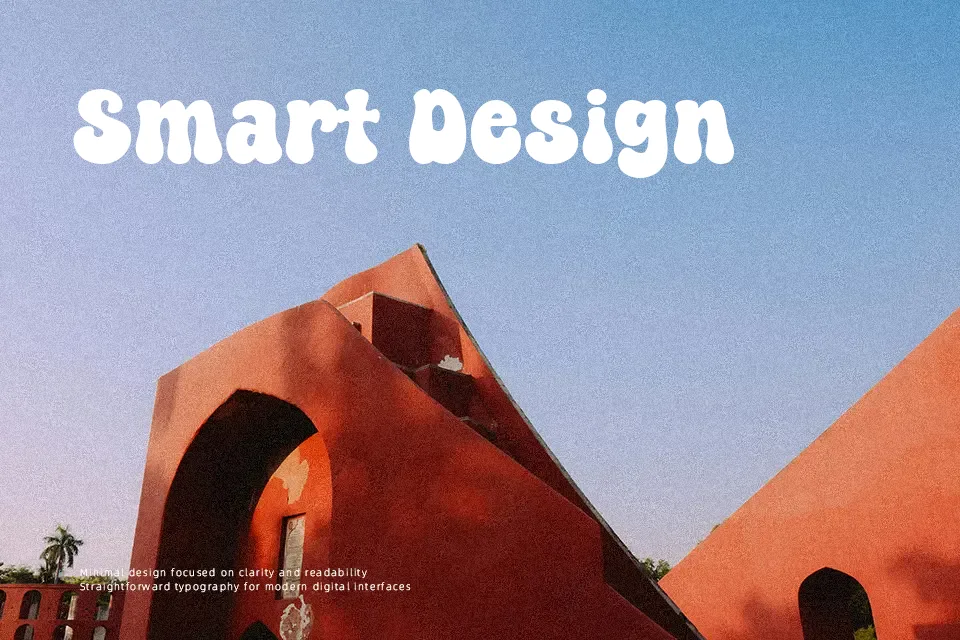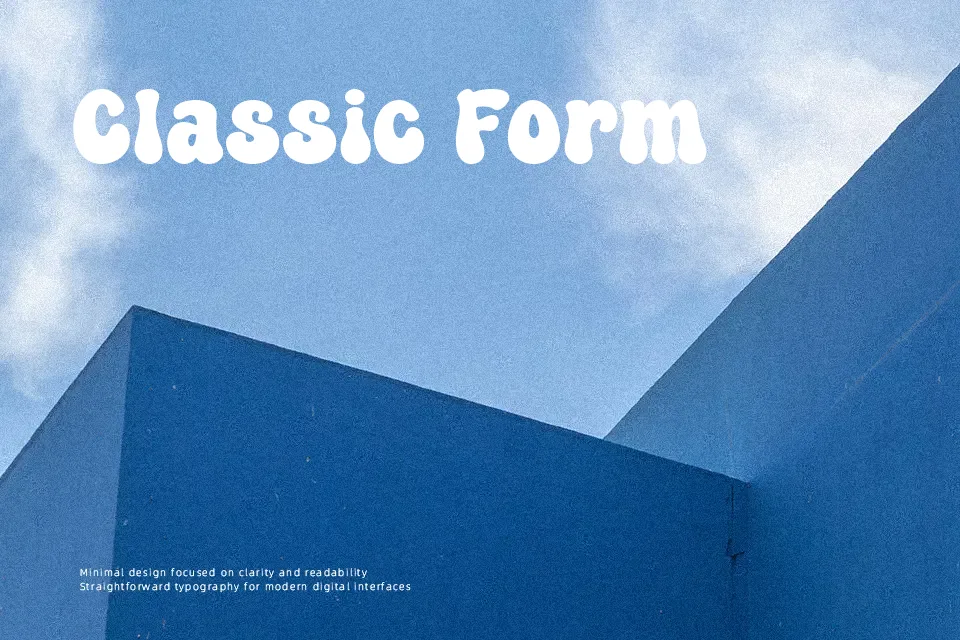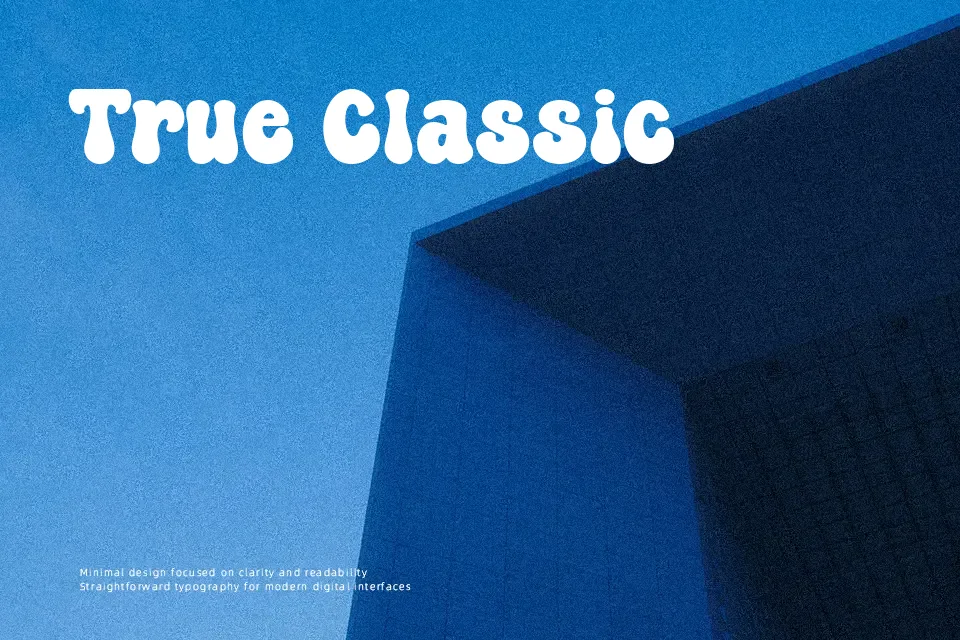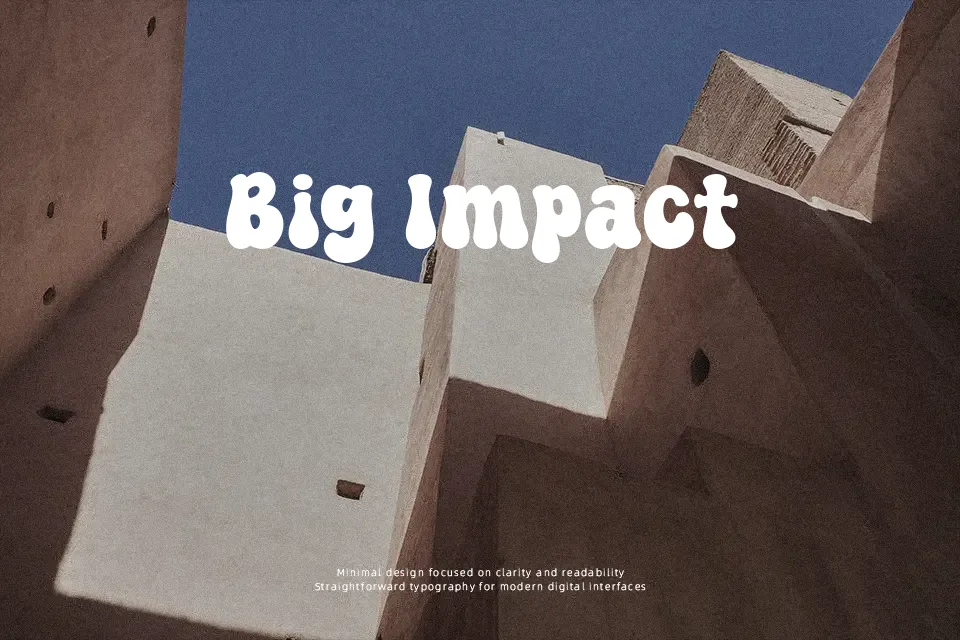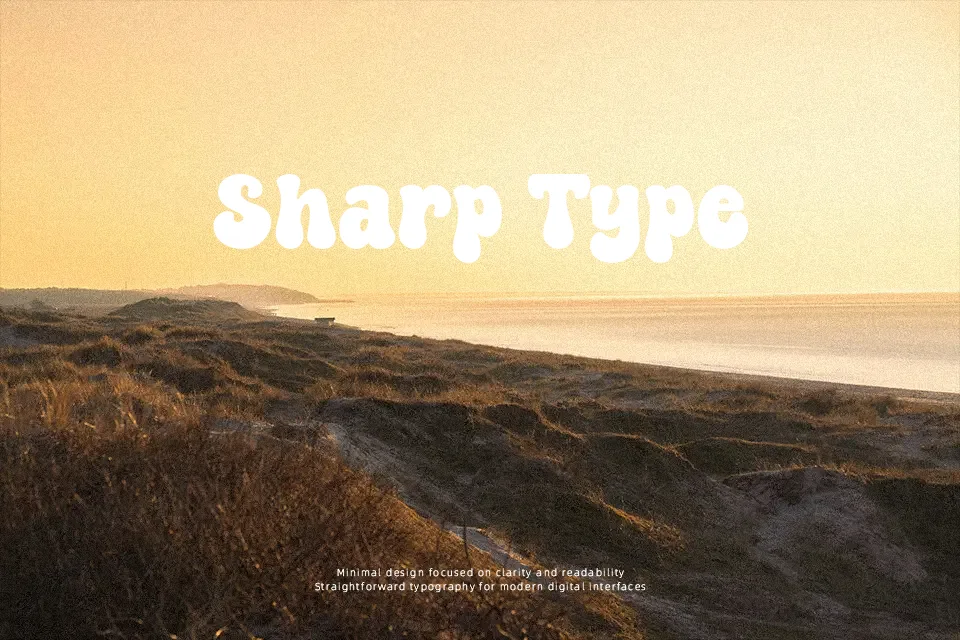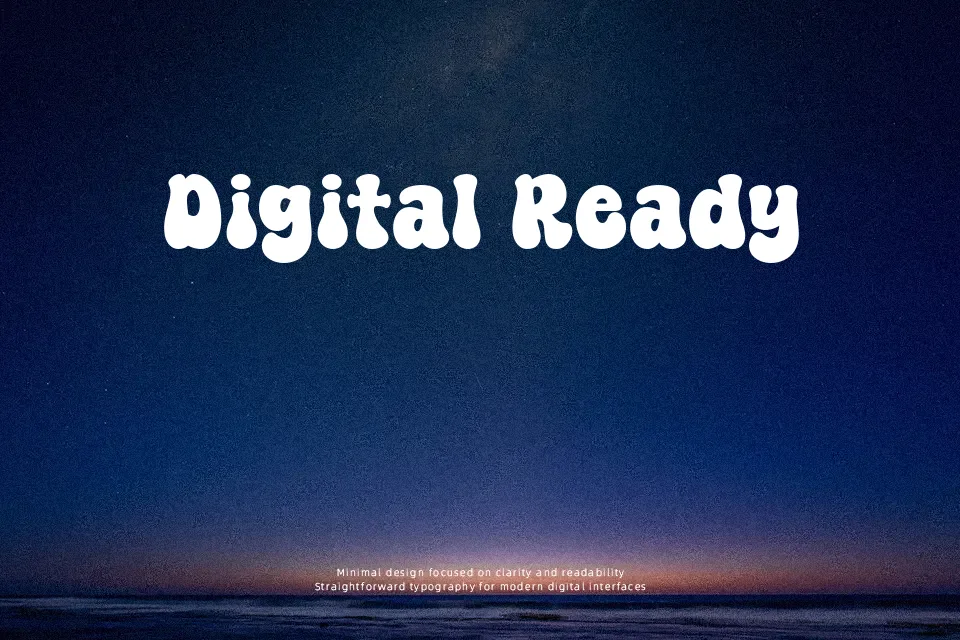
Super Monday Font
Super Monday Font uses rounded, hand-drawn letterforms with substantial strokes, soft curves, and an informal display rhythm. The characters appear broadly proportioned rather than tightly condensed, giving short words a full, friendly presence in headlines and graphic-led layouts. Its visible Latin glyphs, numerals, and punctuation maintain the same bold, playful construction. The typeface works most comfortably for short phrases on posters, packaging, and social media artwork, where its silhouette can remain clear. The heavy, decorative forms help it hold attention at larger sizes, but they are less comfortable for paragraphs, compact labels, or detailed interface text.
Best For: retro product packaging,poster headlines,social media graphics,short logo treatments
Perfect for headline, logo, and packaging, with a bubble and display style.